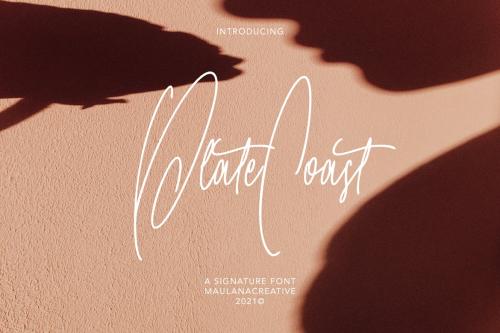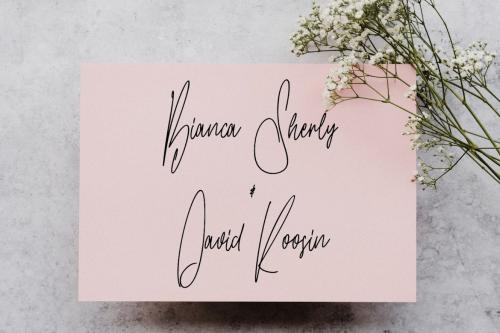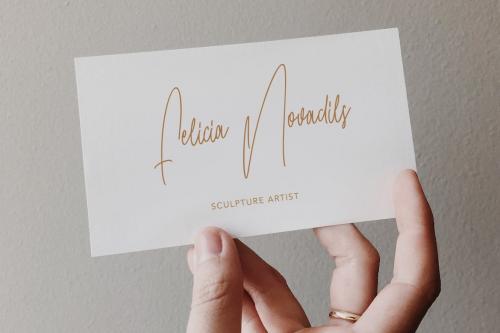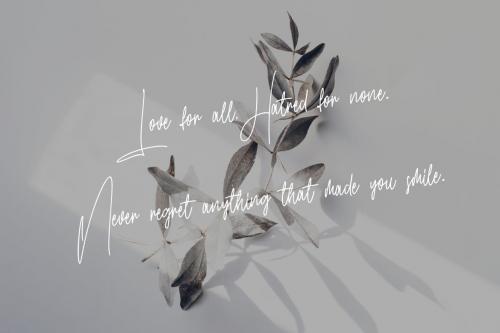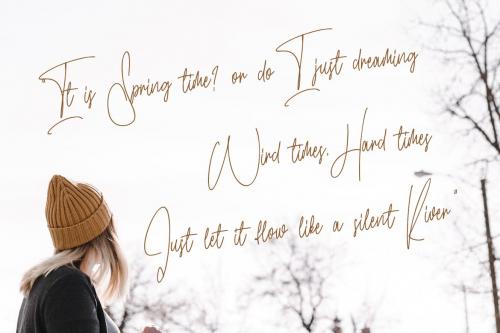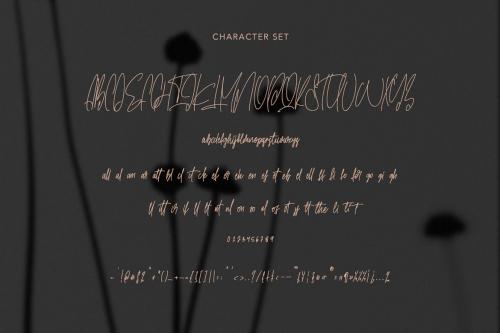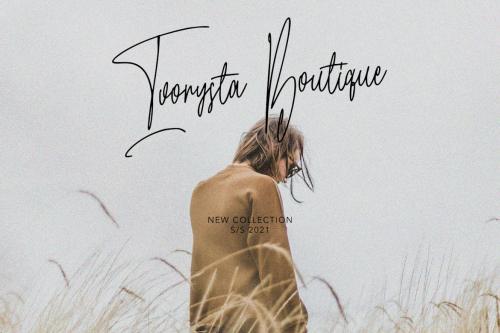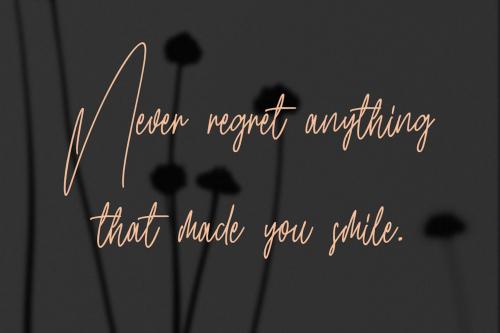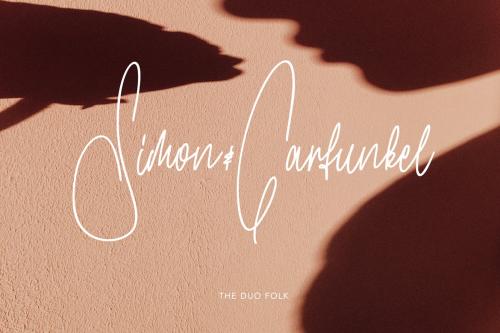
Plate Coast 签ATURE 字体
Plate Coast Signature Font
Plate Coast is casual signature font, with clean thin mono-line stroke, slanted, condensed and fun character. It has Opentype features ligatures of character and lowercase alternates, To give you an extra creative work. Plate Coast font support multilingual more than 100+ language. This font is good for logo design, Social media, Movie Titles, Books Titles, a short text even a long text letter and good for your secondary text font with sans or serif. Make a stunning work with Plate Coast font.